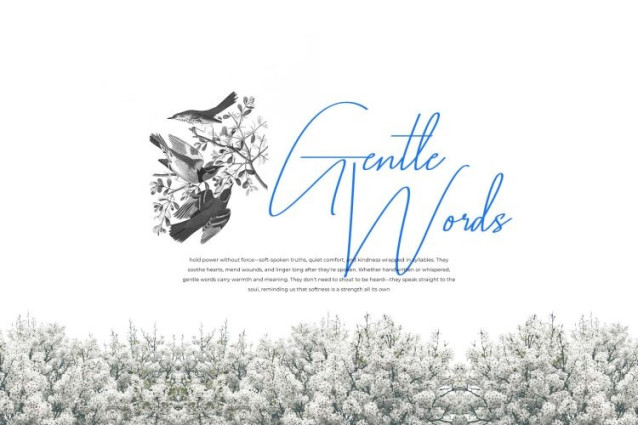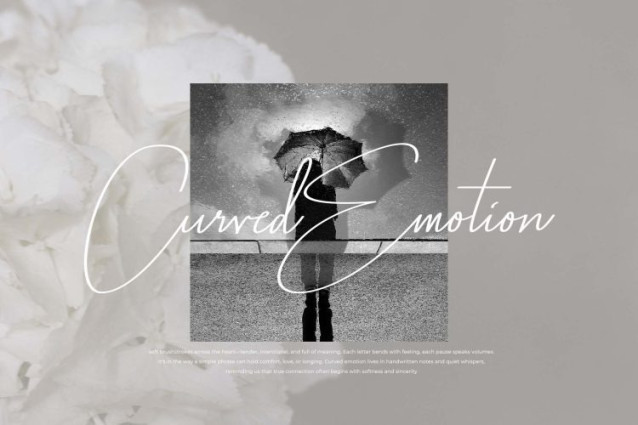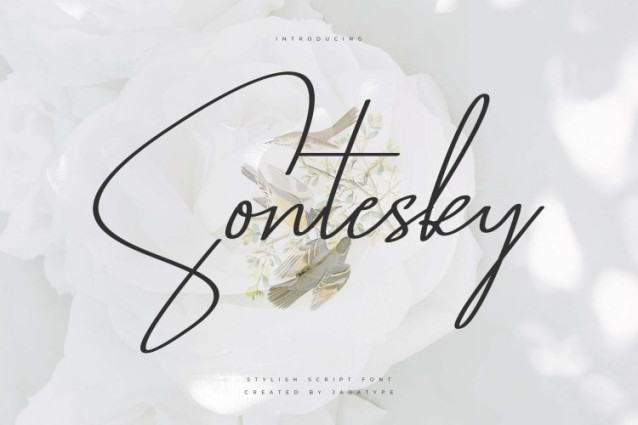
Sontesky Script Font
Sontesky Script Font is a font with a simple script style. suitable for branding, social media, products, advertisement, and so on. contains standard English letters, numbers, punctuation, and several accents that support multilingualism.